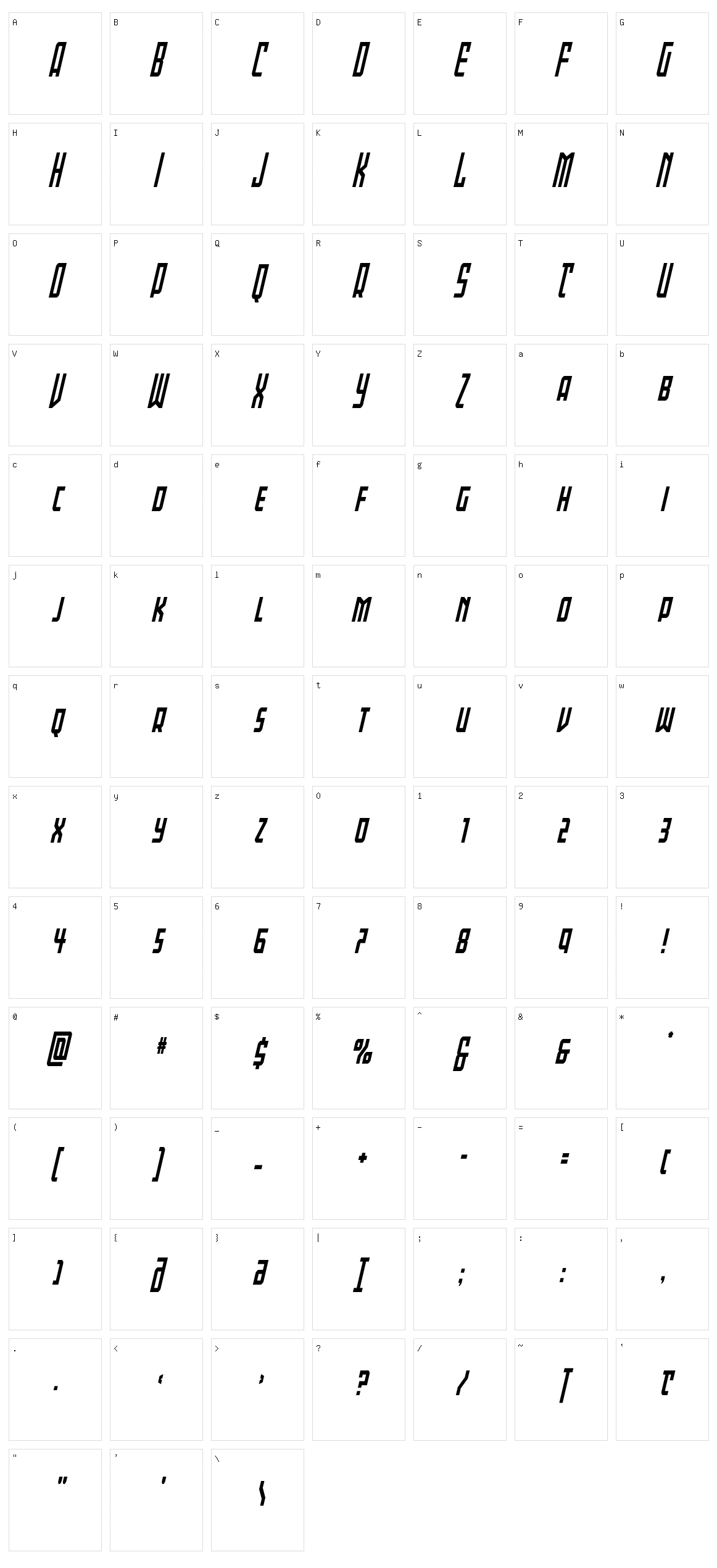
Gotham Knights Font Version 1.0
This font comes with the following 3 base fonts where the capital letters align differently to the lower case letters: Regular, Shift and Mid L
Each base font comes with the following 11 versions: Regular, Italic, Semi-Italic, Super-Italic, Leftalic, Condensed, Condensed Italic, Expanded, Expanded Italic, 3D and 3D Italic.